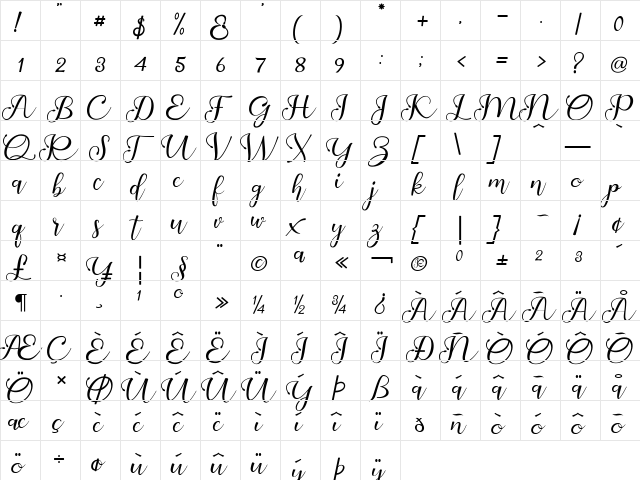
Dardanila Regular
Design Context for Dardanila Typeface
Dardanila is a composed and adaptable typeface that performs quietly and consistently across a wide range of design contexts.